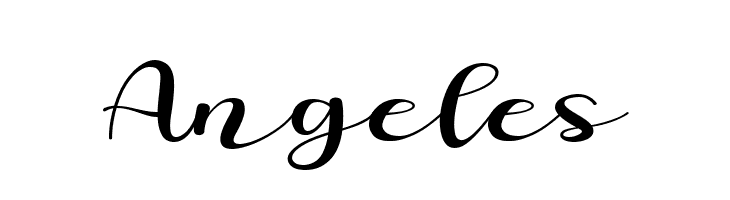
A bold, expressive handwritten font with dynamic strokes and a playful appearance.
A bold, expressive script font with flowing, cursive letterforms and high contrast.
A sophisticated script font with flowing, interconnected letters and ornate uppercase designs.
An elegant, flowing script font with a cursive, handwritten style.